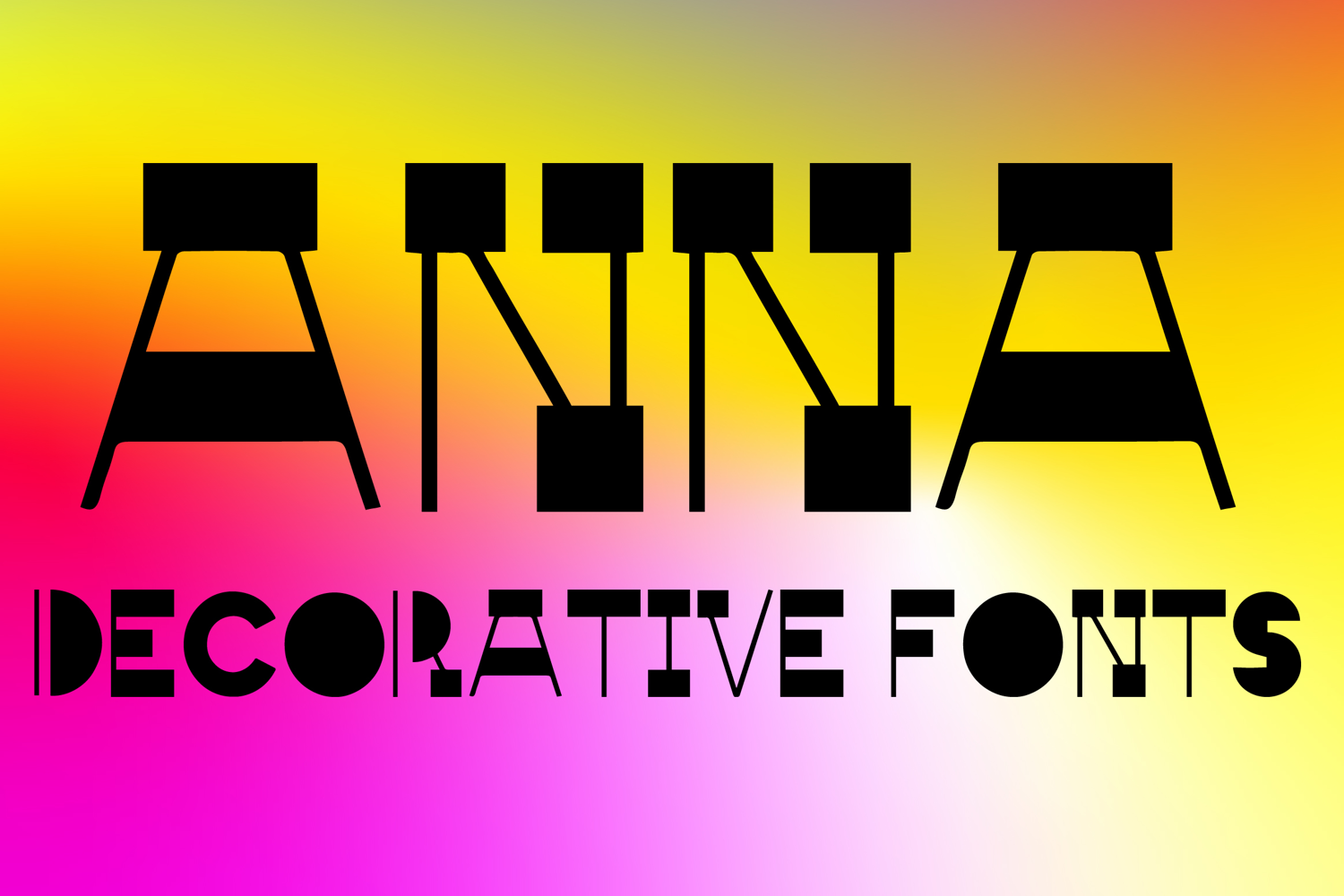
ANNA
ANNA is a bold decorative display font with a striking geometric style and modern artistic flair. Its uppercase letterforms feature strong block shapes, sharp linear details, and unique cutout-inspired structure that create a dramatic, stylish, and eye-catching look. Designed with uppercase letters A–Z and numbers 0–9, ANNA is perfect for branding, posters, packaging, logos, headlines, and creative projects that need a bold and unforgettable statement.